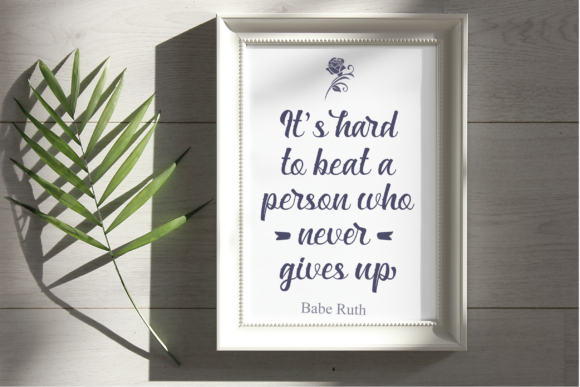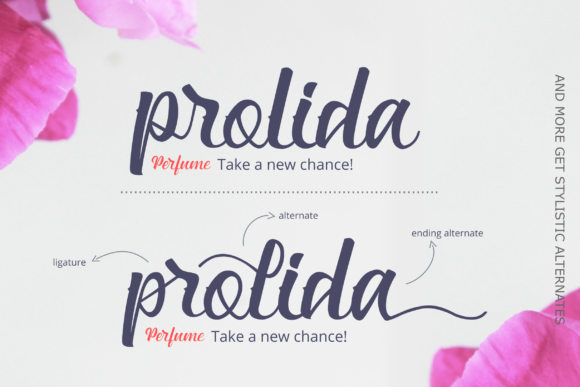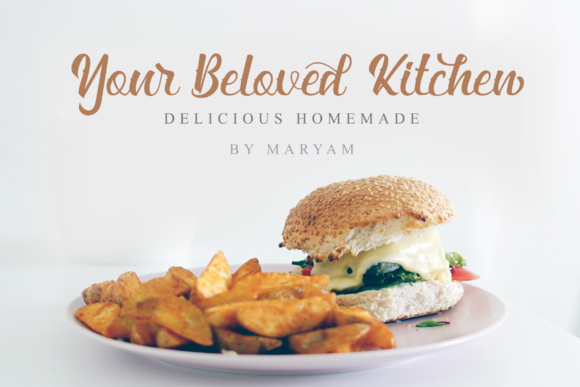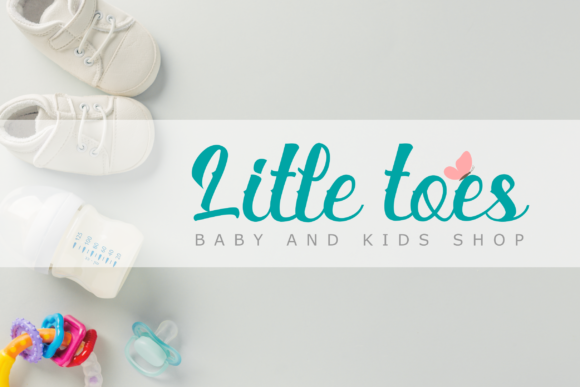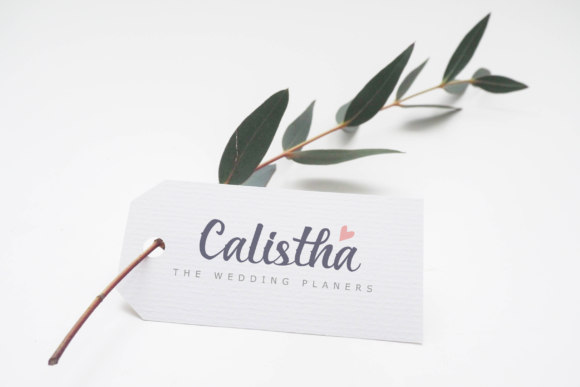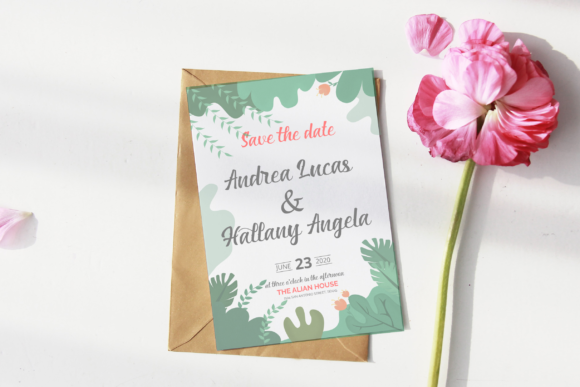
Introduction to Rumaisha Font Font
Fonts play a crucial role in design, and the Rumaisha Font font is a typeface that brings both character and versatility to any project. Whether you’re working on a branding project, a website, or a print design, the Rumaisha Font font offers a unique style that can elevate your work.
Rumaisha is an elegant and flowing handwritten font.
It is PUA encoded which means you can access all of the glyphs and swashes with ease It features a varying baseline, smooth lines, gorgeous glyphs and stunning alternates.
The Rumaisha Font font is more than just a typeface – it’s a design tool that helps you communicate your message with style and clarity. Its unique character set and versatile design make it suitable for a wide range of applications, from elegant invitations to bold headlines.
With its carefully crafted letterforms and balanced proportions, the Rumaisha Font font ensures readability and visual appeal across all mediums.
The Rumaisha Font font stands out with its unique design, exceptional readability, and versatility across various design applications.